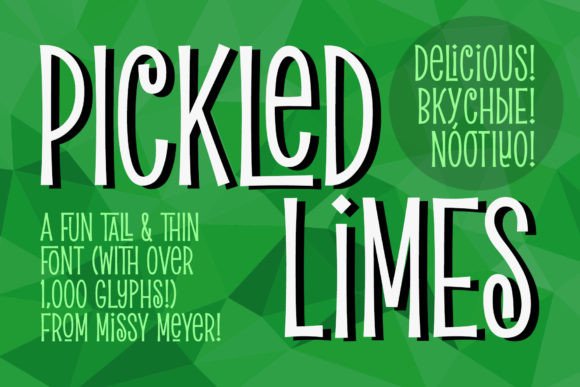
Introducing the captivating Pickled Limes Font, a display font that will elevate your designs to new heights! Created by the talented GeekMissy, this font is the perfect combination of style and functionality.
The story behind Pickled Limes Font is truly unique. It all began with the letter S, which served as the inspiration for this beautiful font. GeekMissy's passion for design led her to create a font that is not only visually stunning but also highly versatile.
One of the standout features of Pickled Limes Font is its tall and narrow single-case design. Every line and corner is meticulously crafted to ensure ultra-sharp precision. The clean and sleek aesthetic will effortlessly enhance any project you use it for.
But what sets Pickled Limes Font apart is its delightful mix of rounded edges, flared ends, and quirky characters. This font exudes a sense of playfulness and creativity, making it an absolute joy to work with. Whether you're creating a logo, branding project, crafting work, or design project, Pickled Limes Font will add a touch of whimsy and charm.
GeekMissy has gone above and beyond by including over 300 Extended Latin characters, making this font suitable for a wide range of languages. Additionally, Pickled Limes Font offers full support for Unicode's 256 Cyrillic and 121 Greek characters, ensuring that you have all the tools you need to communicate effectively across different cultures.
With over 90 alternates, ligatures, and catchwords, Pickled Limes Font offers endless possibilities for creating unique and eye-catching designs. Every character has been carefully designed to seamlessly blend with handwritten styles, allowing you to create truly captivating compositions.